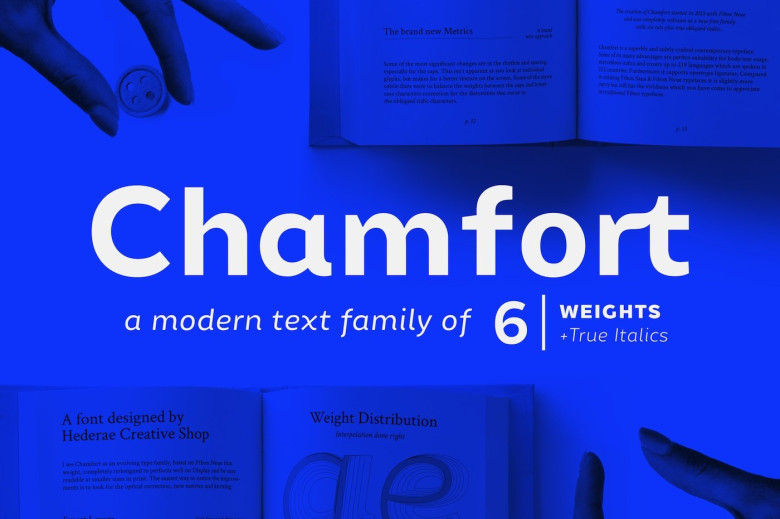
Chamfort Font Family
Continue to be a new font family. Chamfort Family is designed and shared by Valerio Dell’Edera. Chamfort is a very flexible, multifaceted and solid typeface, mixing Geometric shapes with Humanistic strokes at the same time. Its easy to read, legible in small sizes; perfect for branding, editorial and signage, works great for bigger applications in need of more personality, headlines, posters, etc… It has a total of 12 fonts, from thin to black plus italics. Each weight has +405 glyphs, standard and discretionary ligatures. Currently it is being sold for $ 79 on creativemarket